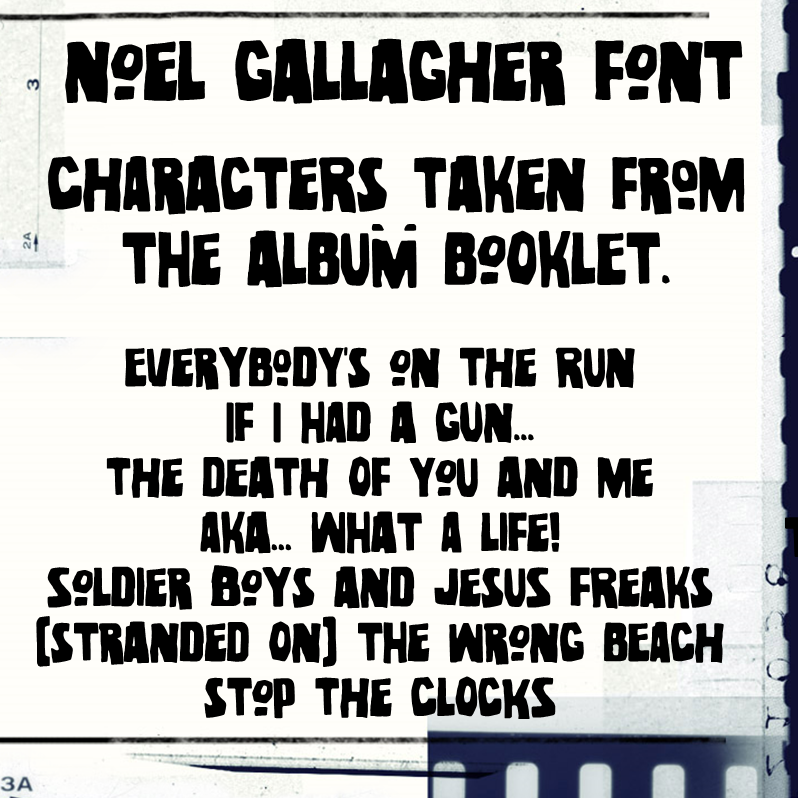
Font name: | Noel Gallagher |
Author: | xpeehdroox |
Note by xpeehdroox | |
Font inspired by Noel Gallagher's High Flying Birds album. All characters are taken from the album booklet. Files with ACCENTS and extra letters. |